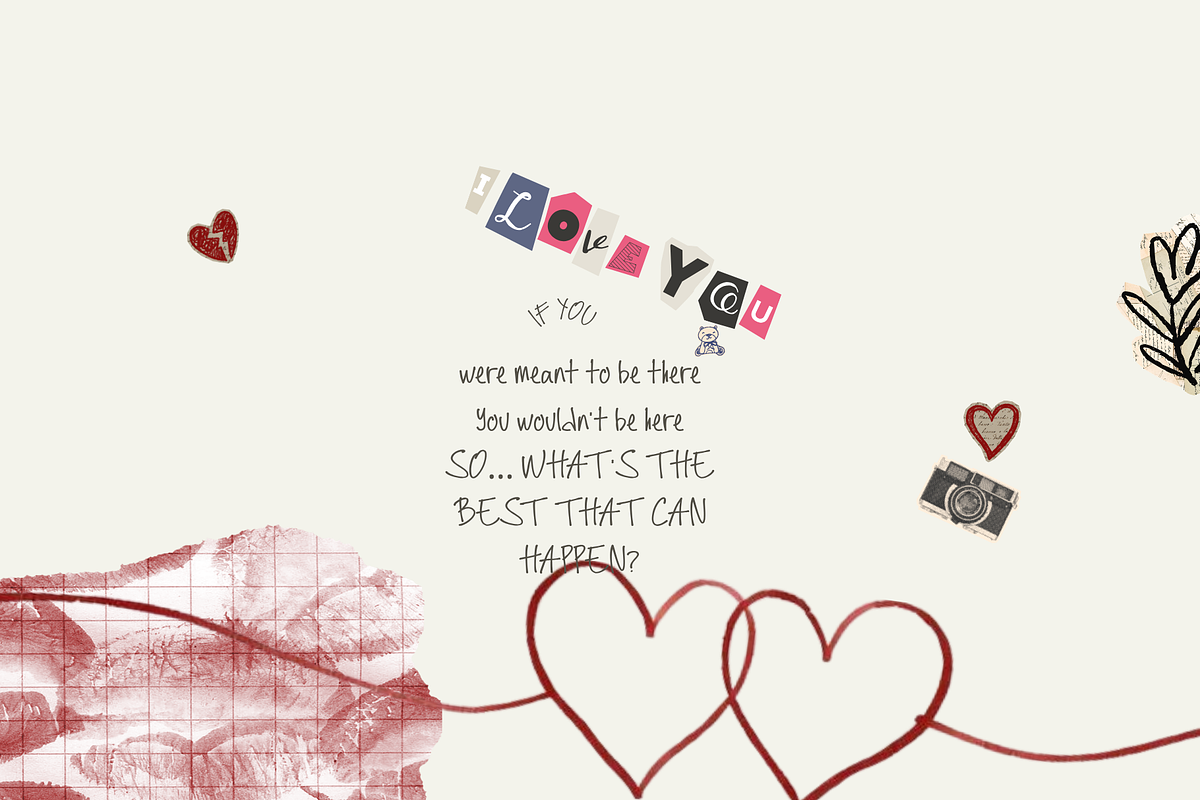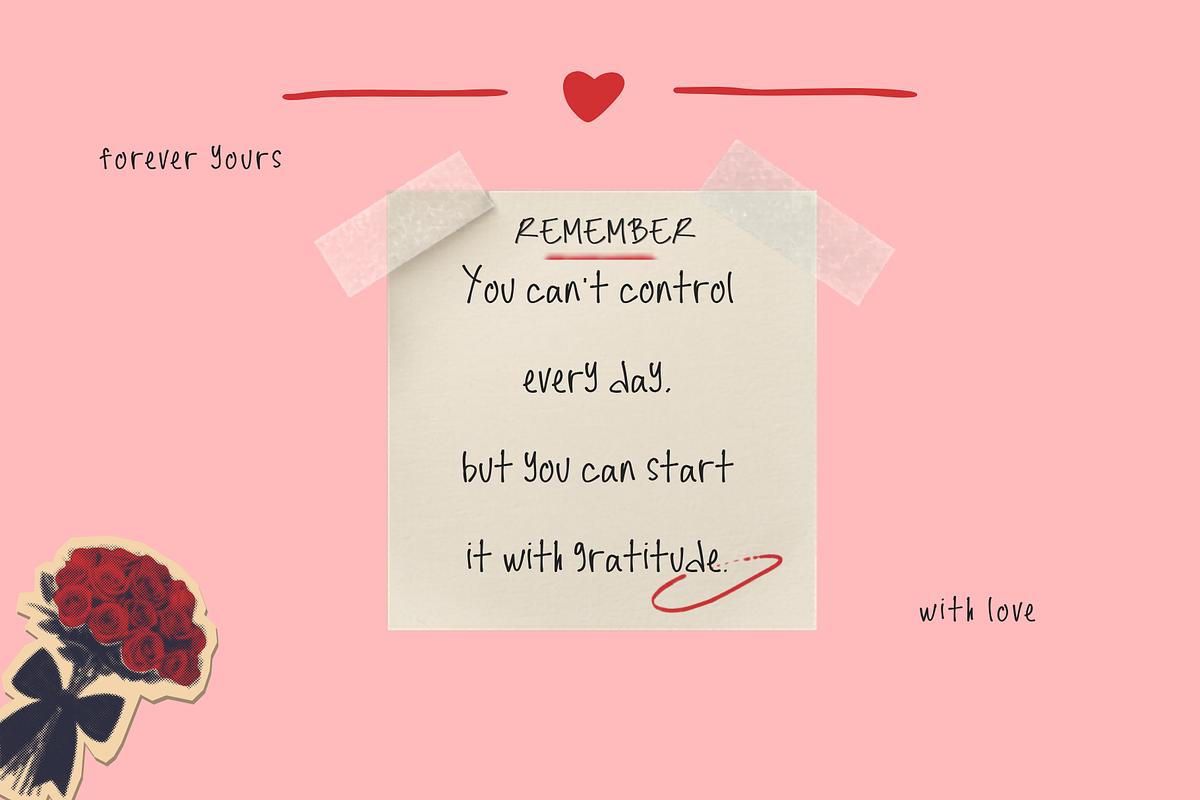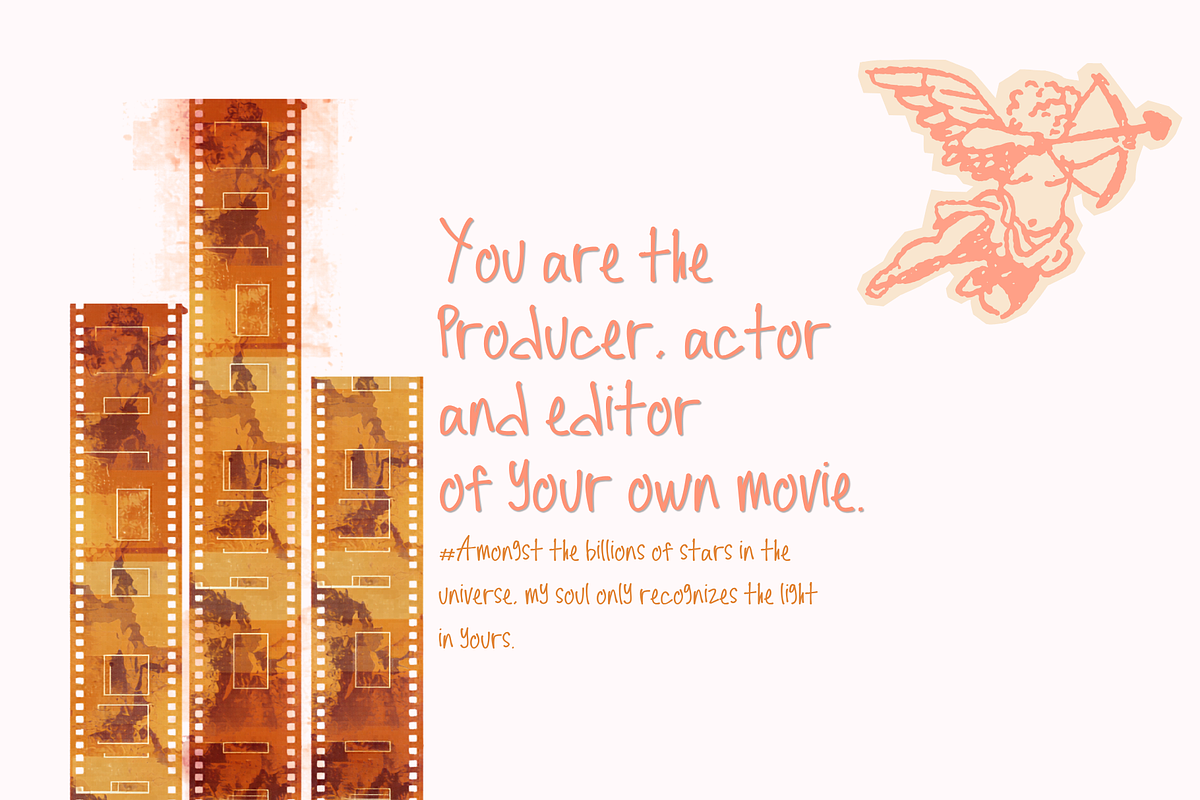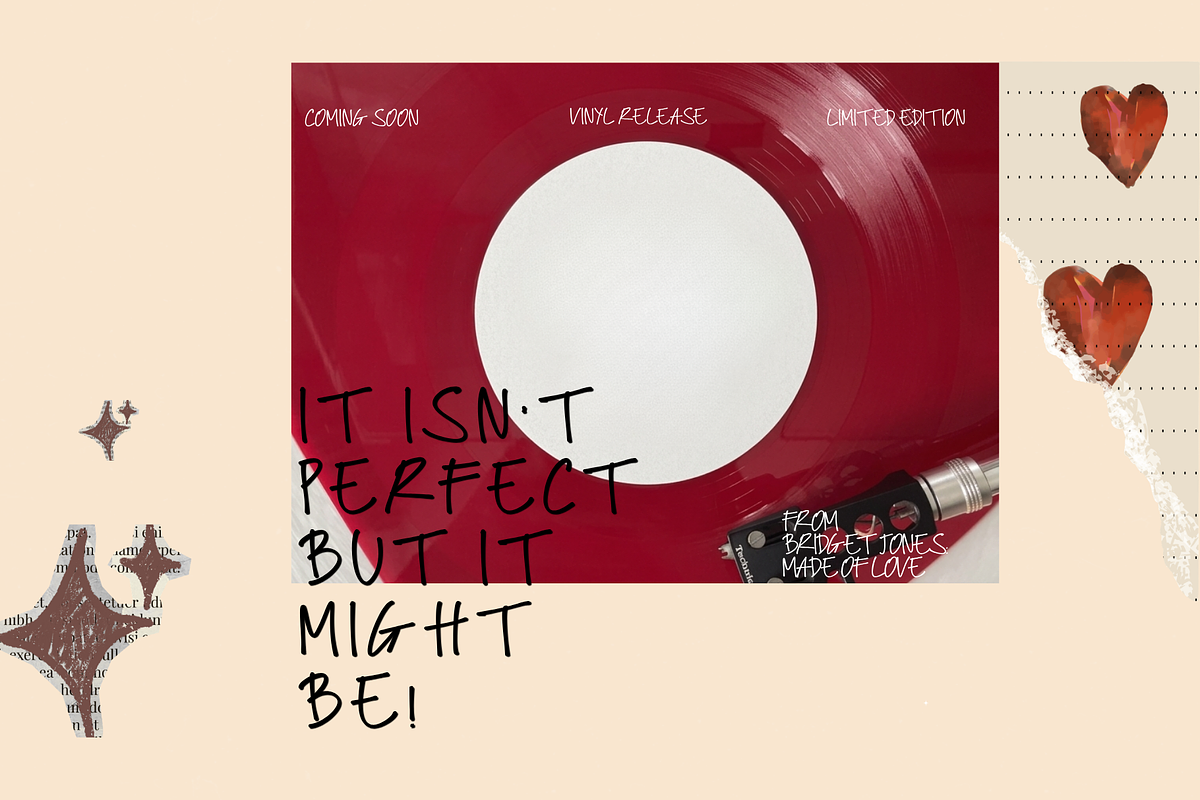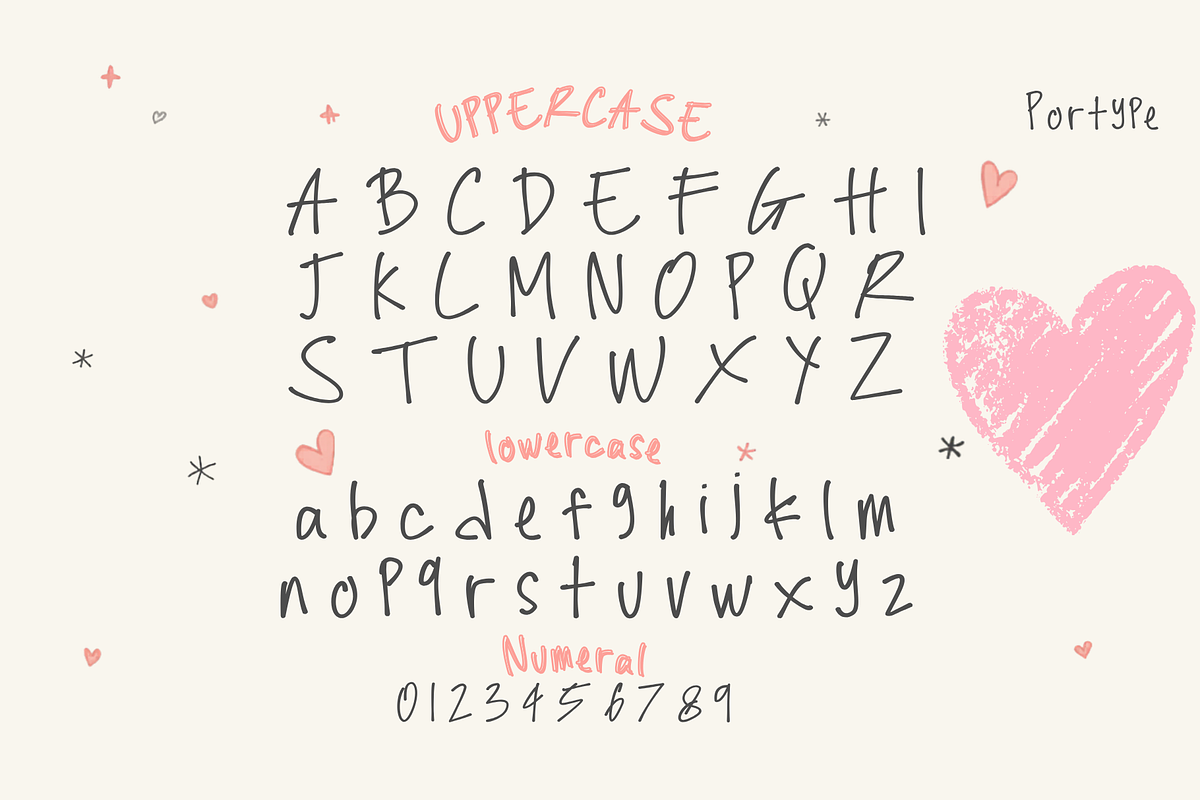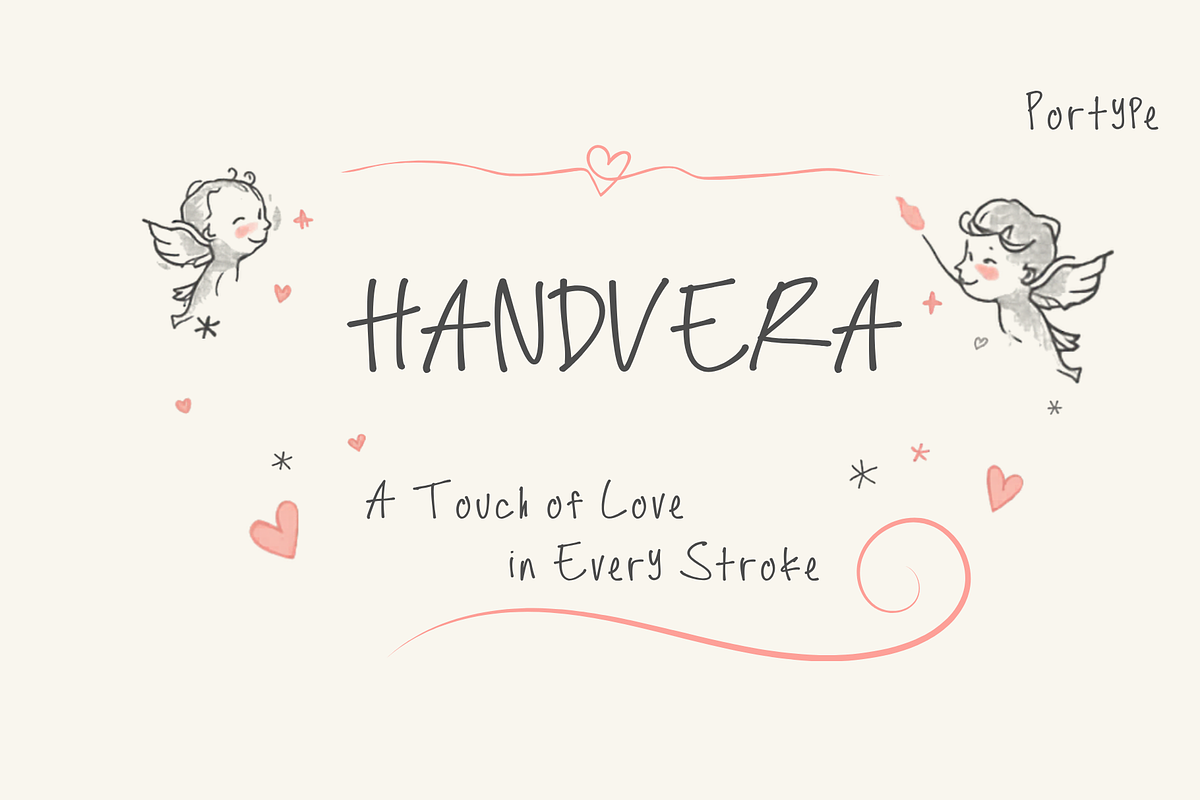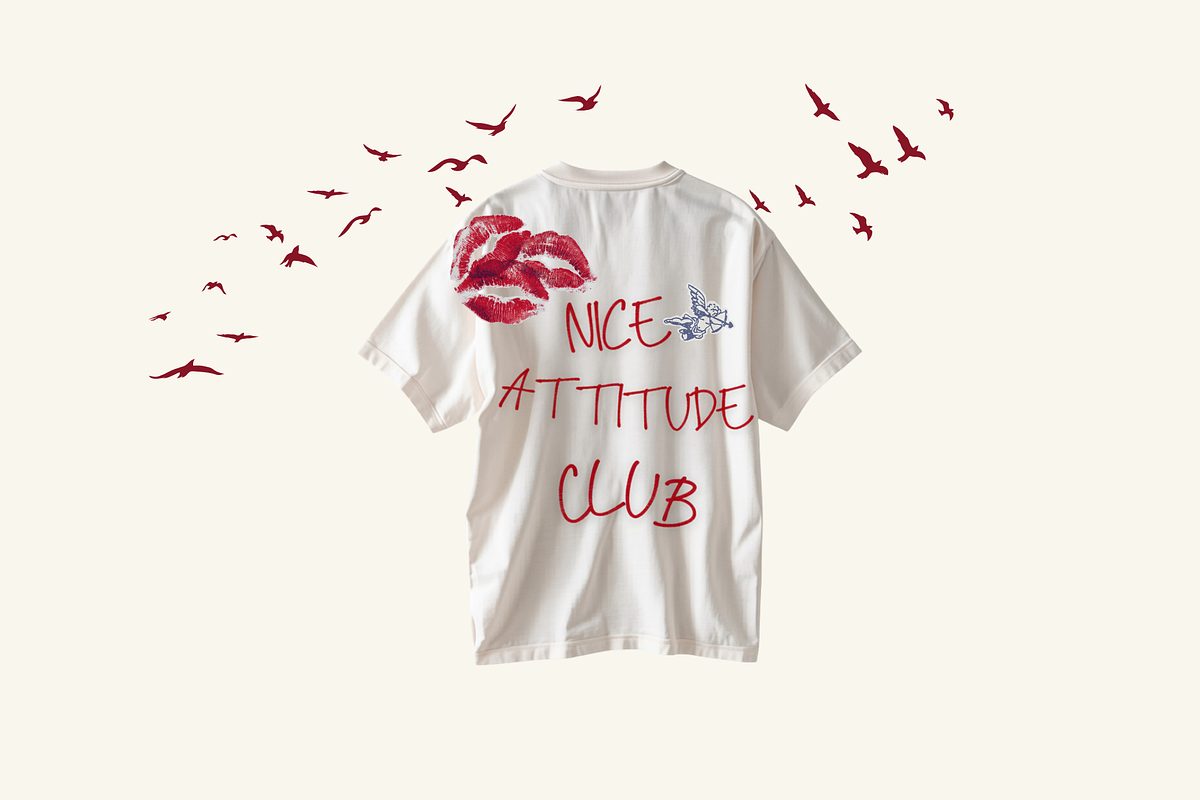
HANDVERA - Handwritten
HANDVERA is a soft and charming handwritten typeface designed to bring warmth, emotion, and a personal touch to every design. Inspired by gentle pen strokes and natural writing flow, this font captures the beauty of imperfection, making each letter feel authentic and heartfelt.
With its smooth curves and slightly uneven structure, HANDVERA creates a cozy and friendly visual tone while remaining clear and easy to read. It blends simplicity with personality, making it suitable for both playful and meaningful designs.
Perfect for love themed projects, quotes, branding, packaging, social media graphics, greeting cards, and creative merchandise, HANDVERA adds a delicate handwritten feel that connects emotionally with the audience. Whether you are creating romantic visuals or soft aesthetic content, this font delivers a natural and expressive style that feels genuine and inviting.